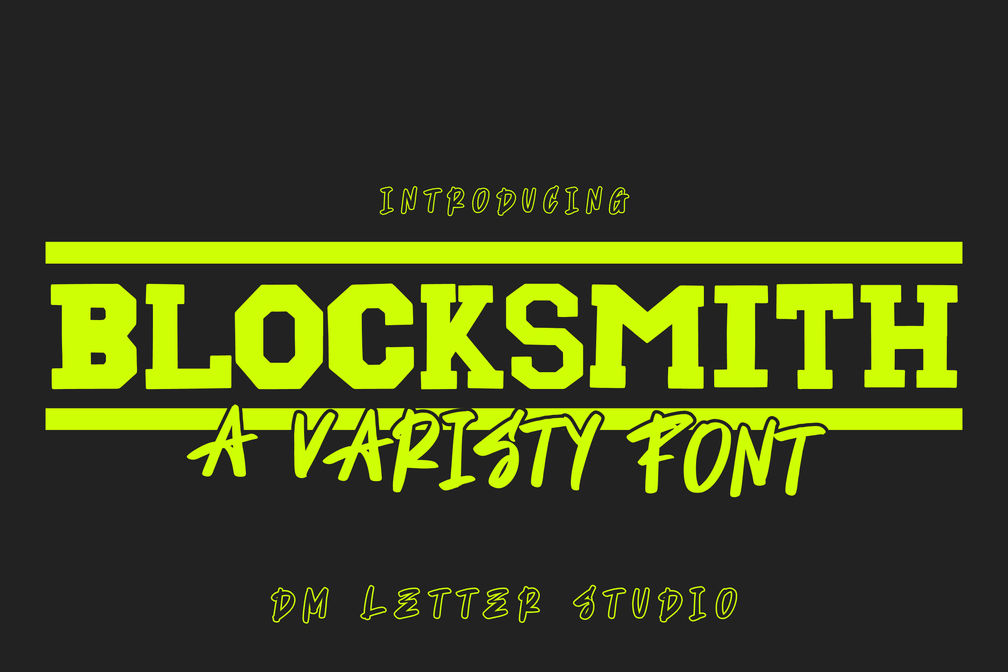
Blocksmith
Blocksmith – A Bold and Classic Varsity Font
Blocksmith is a strong, all-caps varsity font built for impact. With thick strokes, sharp corners, and athletic attitude, this typeface channels school spirit, sports design, and vintage Americana. Perfect for team jerseys, sports logos, college banners, varsity jackets, and retro-style branding, Blocksmith delivers that traditional block-letter look with clean execution and bold style.
• Classic Varsity Style: Inspired by traditional sports lettering with a sturdy, collegiate vibe.
• Perfect for Athletic Designs: Ideal for school gear, team logos, sports merch, and spirit wear.
• Sharp & Strong Look: Thick lines and confident shapes that command attention in print and digital formats.
• Complete Character Set: A–Z uppercase letters, numbers, punctuation, and multilingual support.